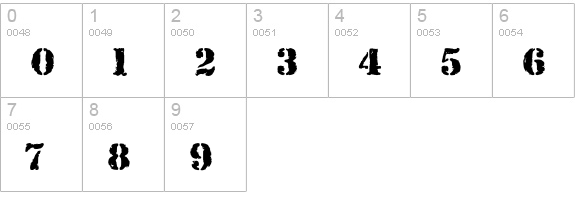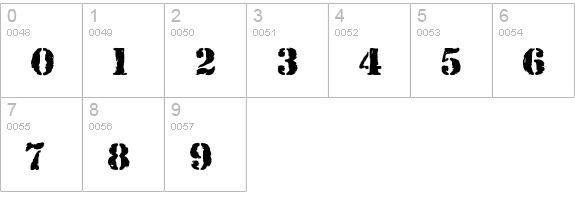
Rubber Stamp LET Plain font is a unique and eye-catching typeface that exudes a sense of authenticity and character. Its rugged, stamped appearance gives any design a touch of handmade charm and nostalgia. The irregular edges and uneven spacing add to its appeal, making it perfect for projects that require a vintage or DIY aesthetic. What makes Rubber Stamp LET Plain font even more appealing is that it is available for free download at FontsMarket.com. This means you can easily access this versatile typeface and use it in your personal or commercial projects without any cost. Whether you're designing posters, invitations, or branding materials, Rubber Stamp LET Plain font is a fantastic choice to add a touch of personality and uniqueness to your work. Download it today and let your creativity shine with this exceptional free font.